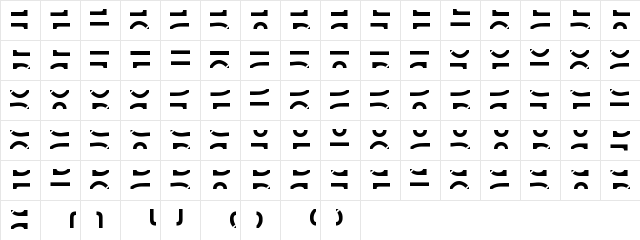
CelticKnotsHorz Medium Font Preview
CelticKnotsHorz Medium
Design Context for CelticKnotsHorz Typeface
CelticKnotsHorz is a composed and adaptable typeface that performs quietly and consistently across a wide range of design contexts.